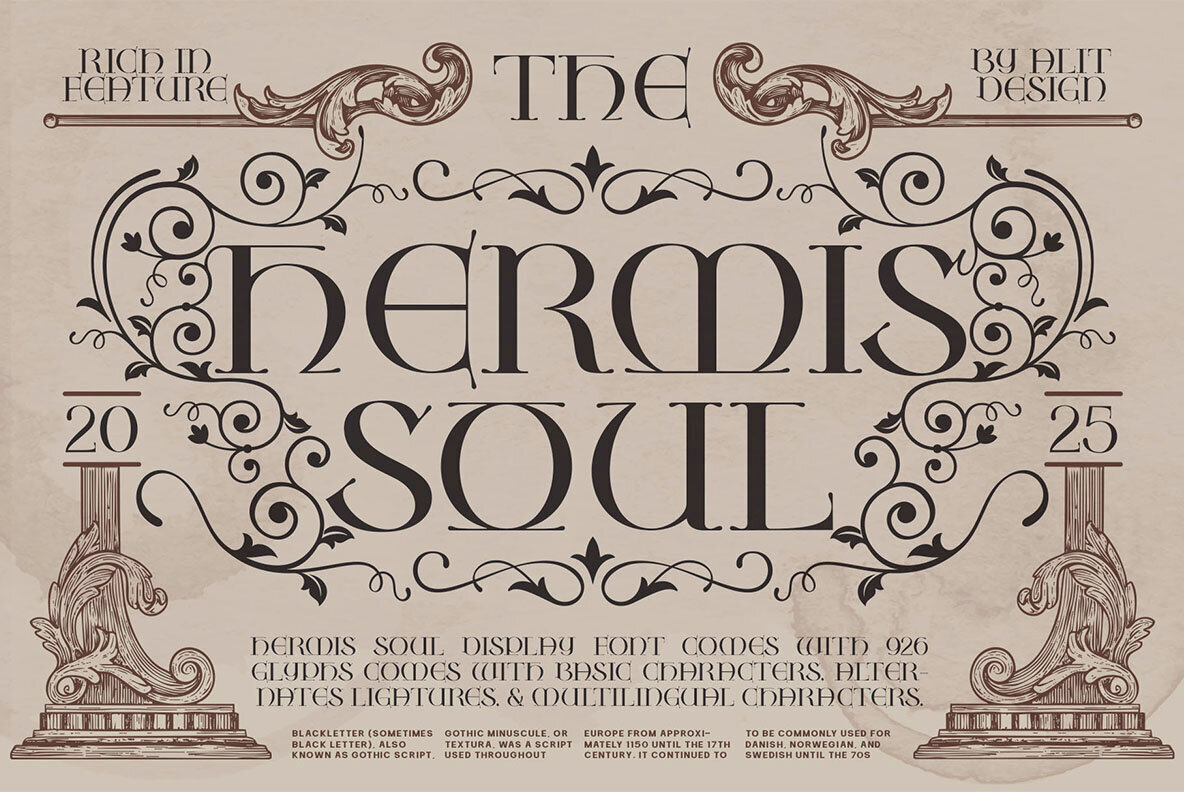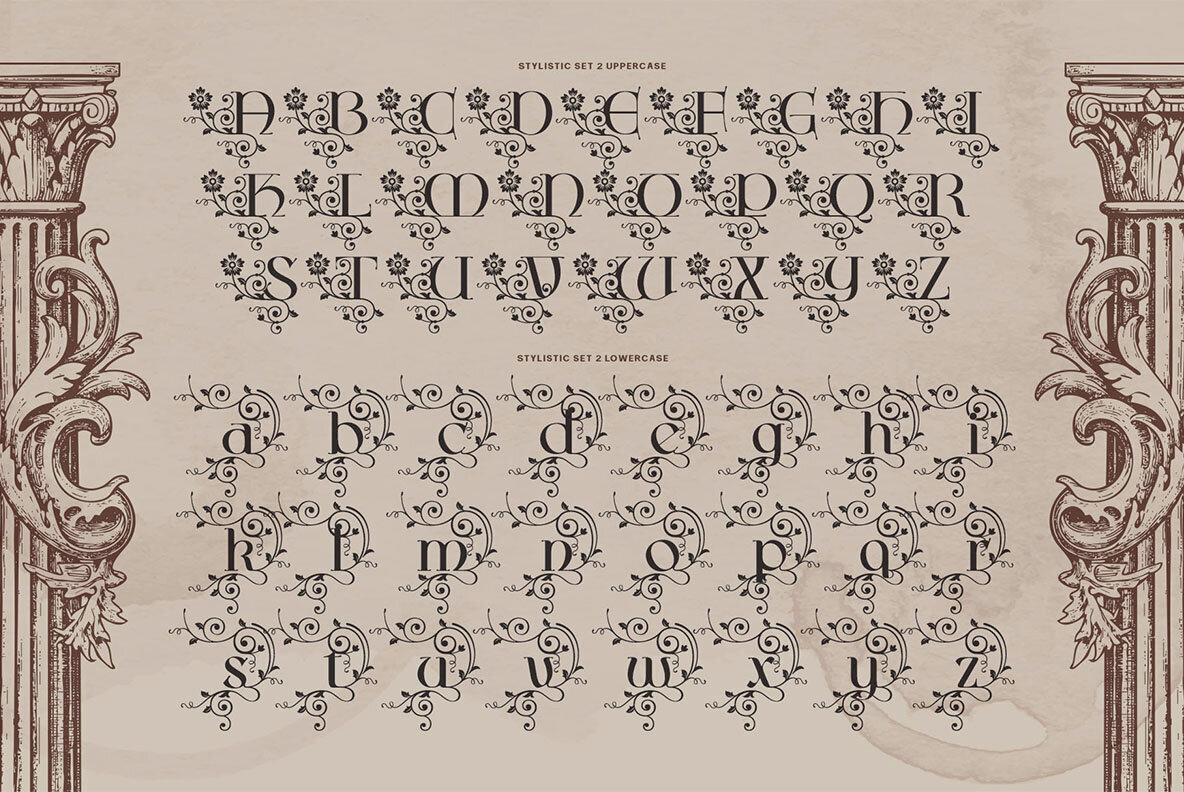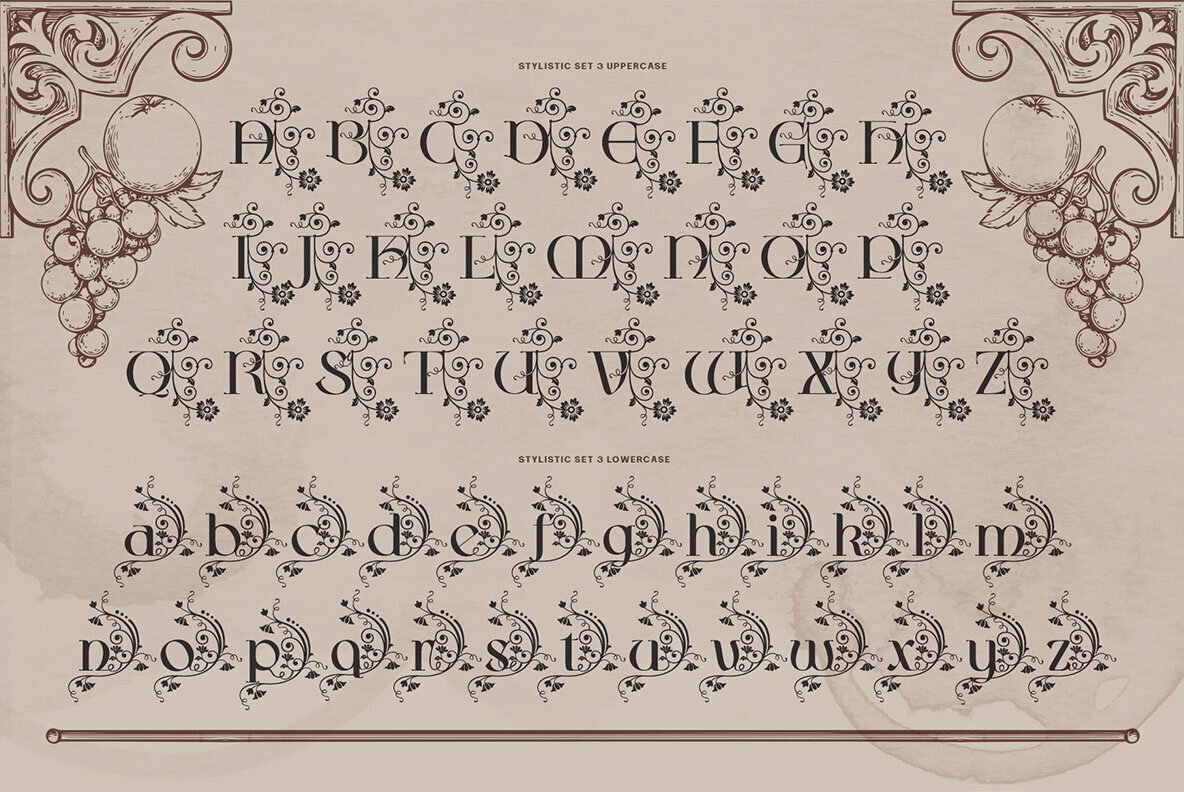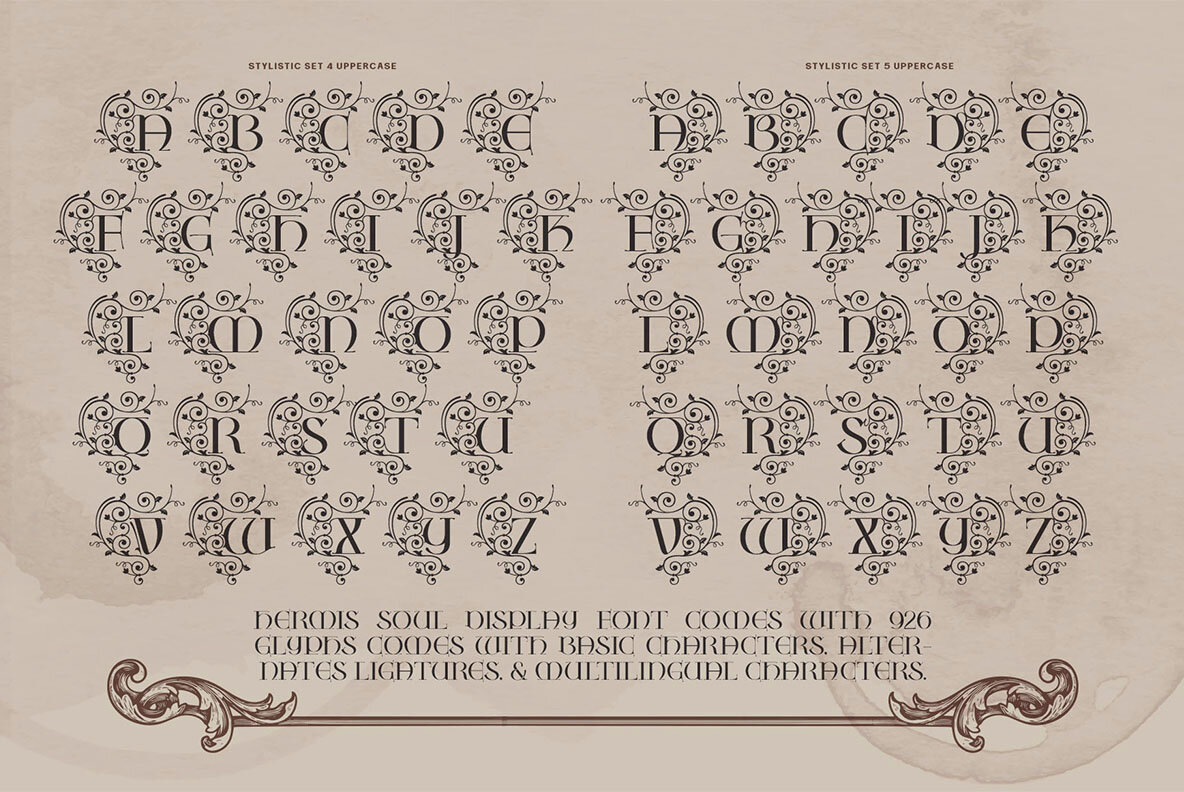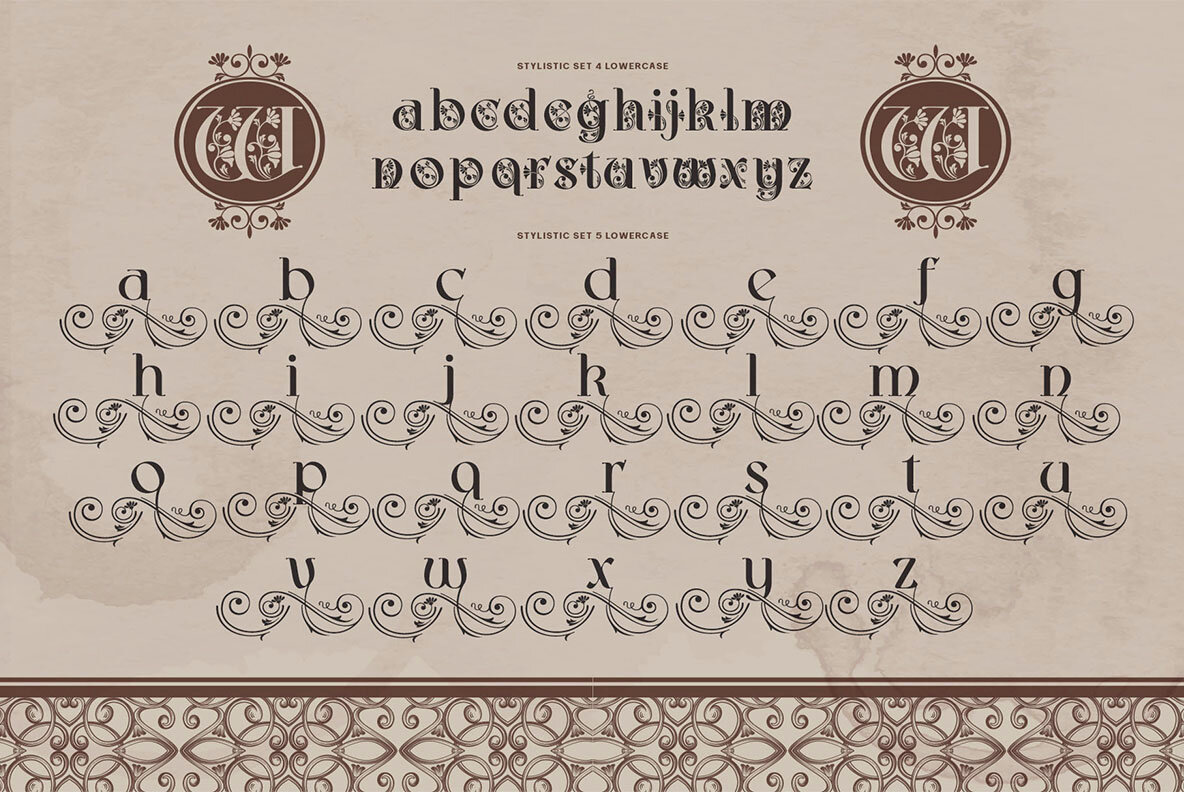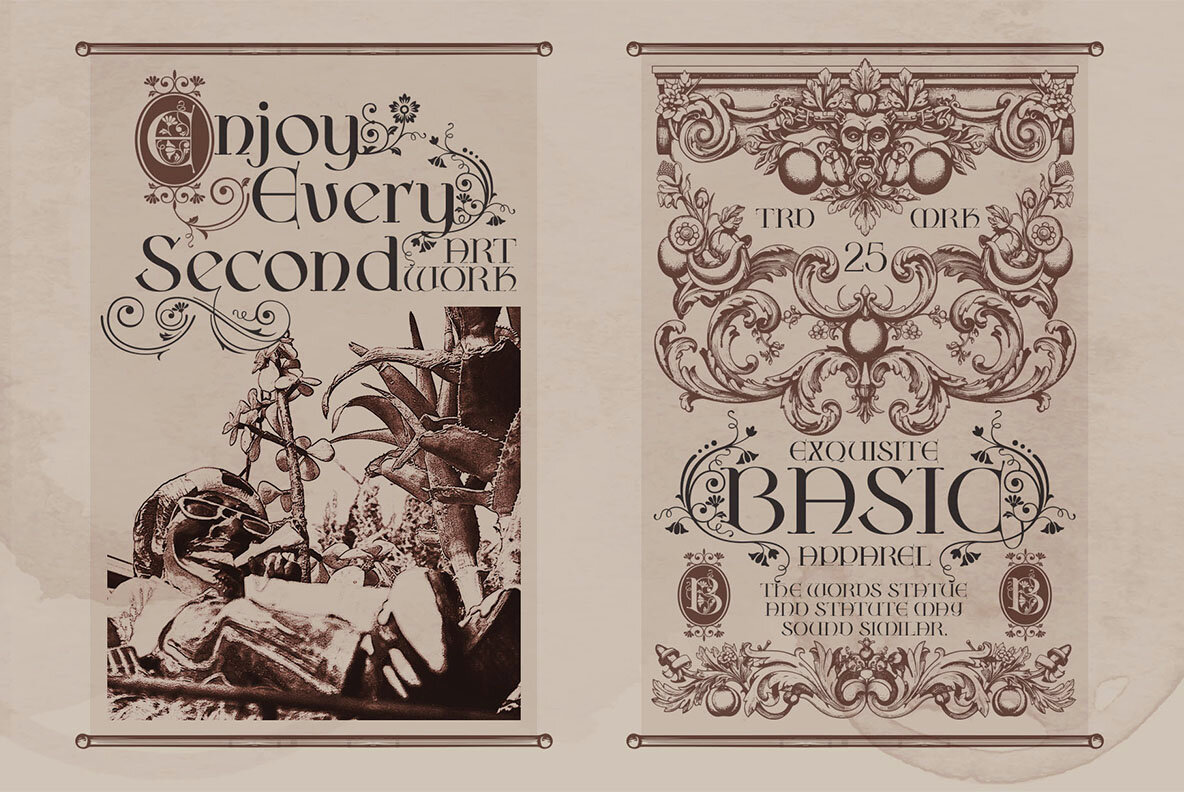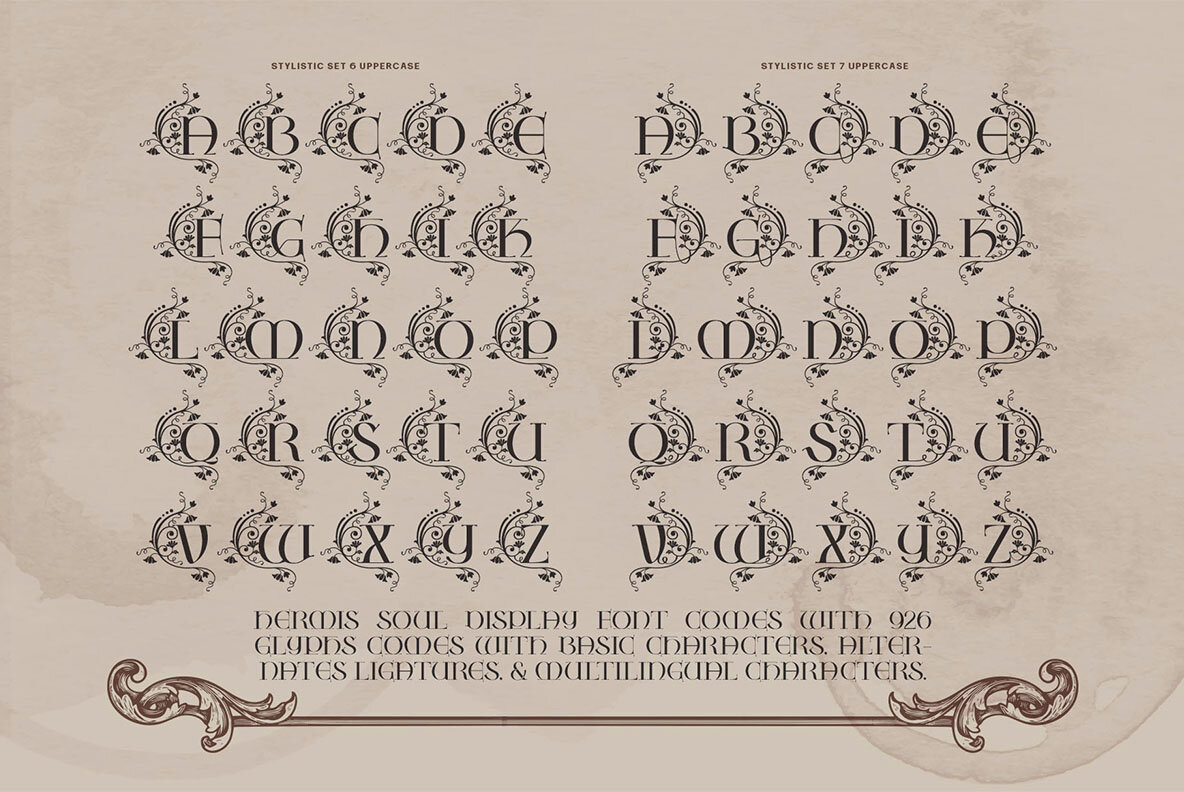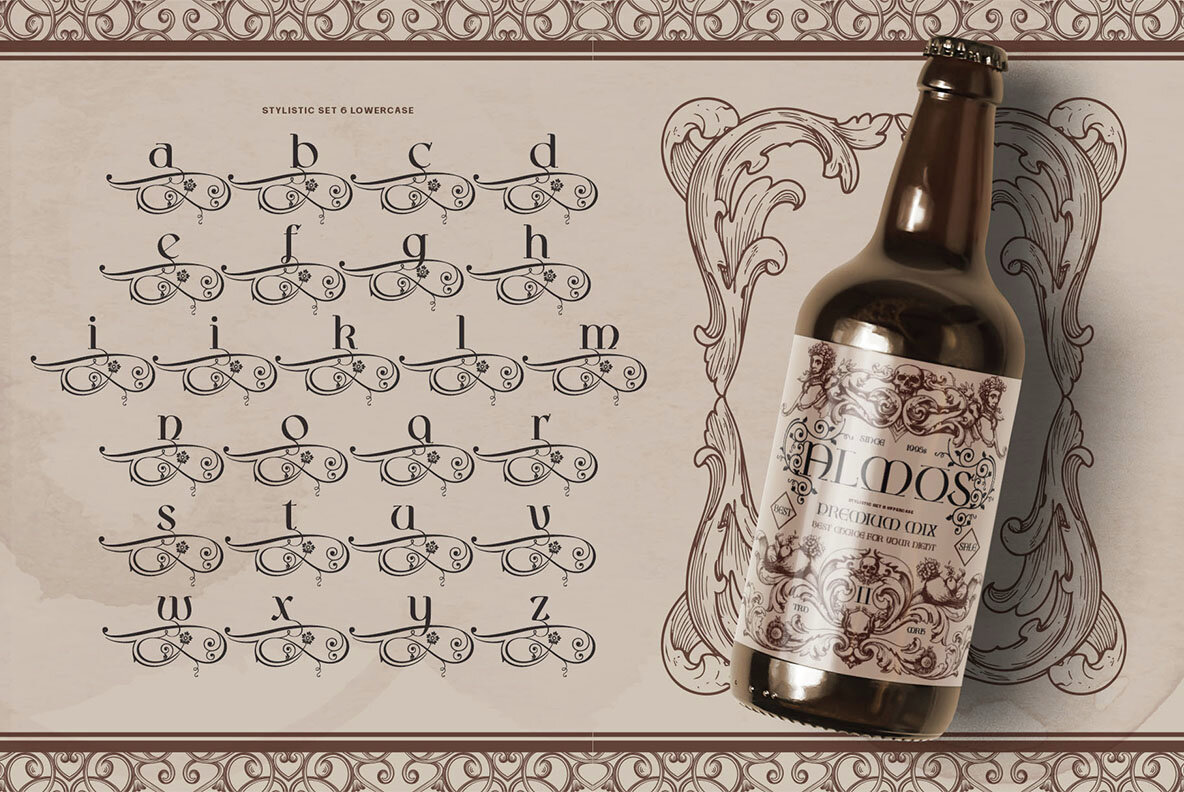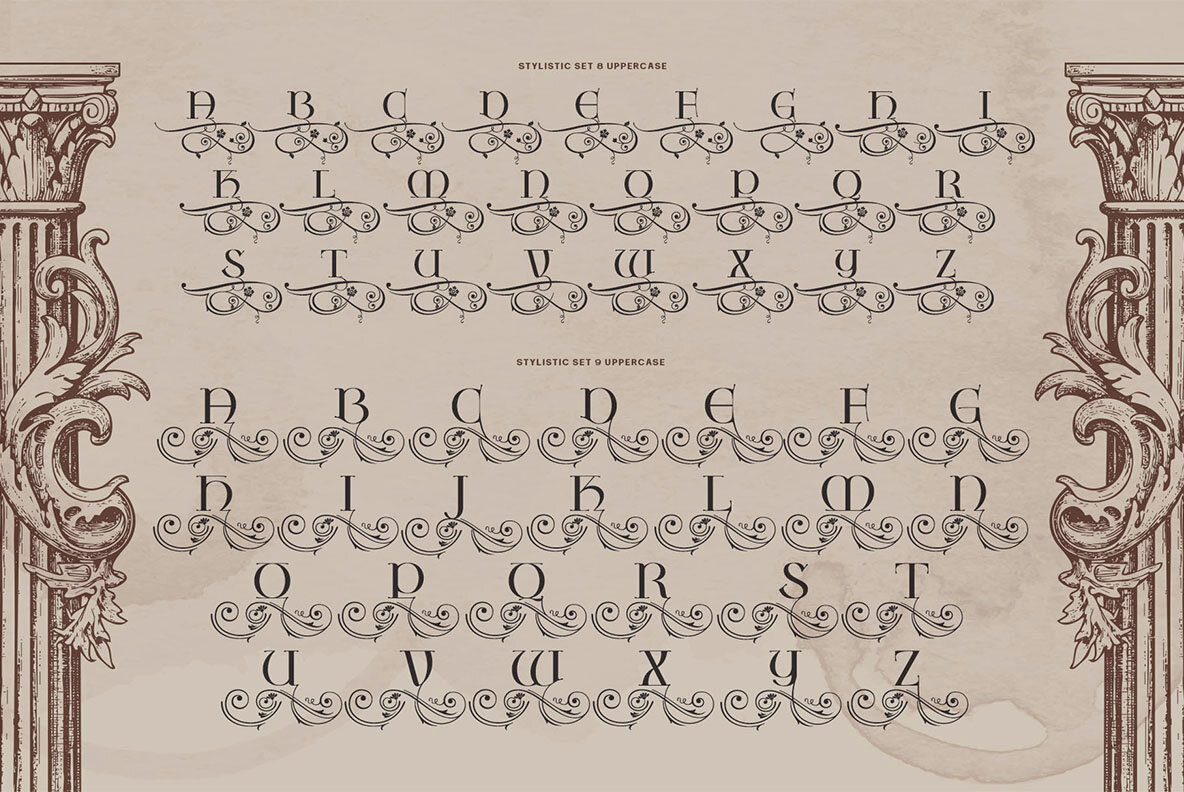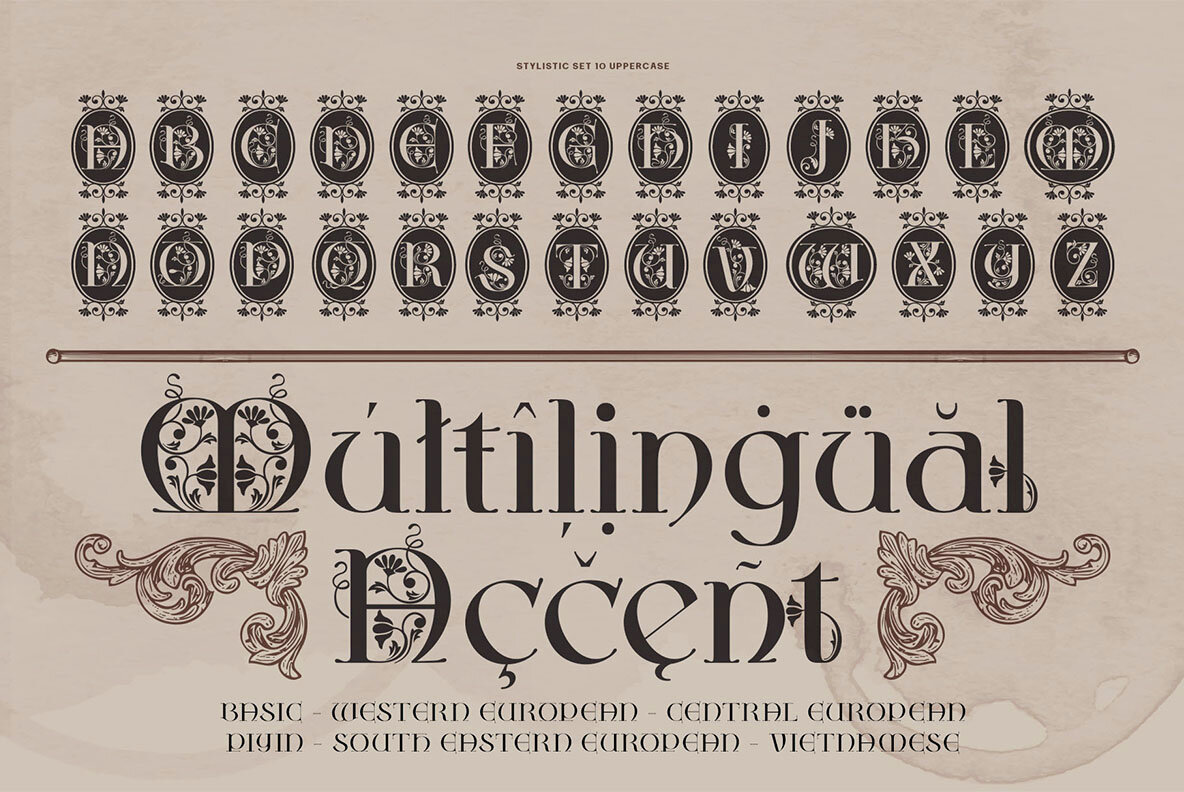
Hermis Soul Typeface - A Journey into Classical Elegance Step into a world of timeless sophistication with the Hermis Soul Typeface, a masterfully crafted font that breathes life into the majestic soul of ancient Greco-Roman and classic European aesthetics. Painstakingly designed by Alit Design, Hermis Soul is not merely a collection of letters but a gateway to an era of divine artistry and architectural splendor. Inspired by ornate carvings, classical columns, and mythological grandeur, this display font is perfect for projects that demand a touch of the sublime. Its elegant letterforms are imbued with intricate details, decorative flourishes, and an impeccable sense of balance, making every word a work of art. Whether you are crafting a luxurious brand identity, designing an invitation for a grand event, or creating a captivating book cover, Hermis Soul provides an expansive toolkit to bring your vision to life. With over 926 glyphs, its versatility is boundless, offering endless creative possibilities. Key Features: Ideal For: Hermis Soul is more than a font; it's a complete design experience. Elevate your projects from ordinary to extraordinary and let the soul of classical elegance define your work.